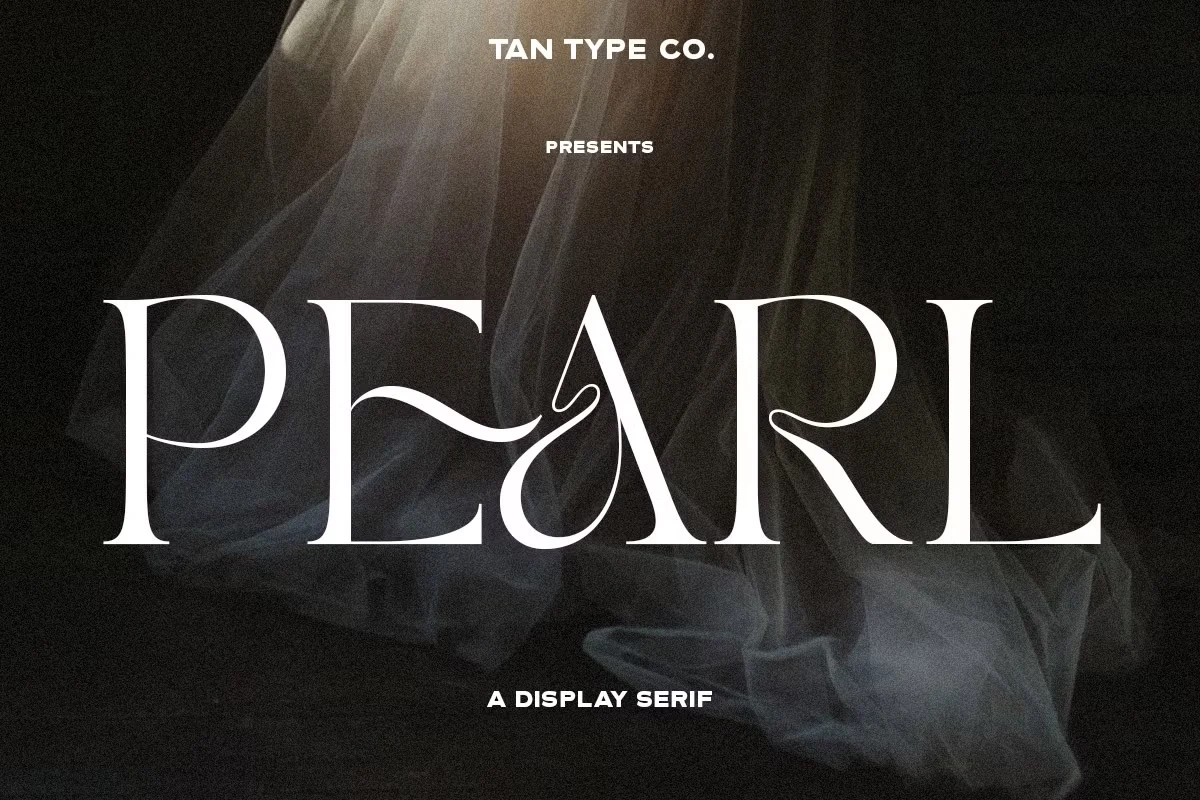
TAN PEARL is an elegant and playful serif font, beautifully crafted with graceful curves and timeless charm. Its classic yet modern aesthetic makes it perfect for a variety of design projects, from wedding invitations and logos to magazine layouts and stylish branding. With its versatility, TAN PEARL effortlessly enhances your creative workflow, making every design unique and naturally appealing. Whether you’re working on a vintage cookbook illustration or creating a boutique’s branding, this font adds a touch of sophistication and charm, elevating your visuals with a refined, high-class feel.
More than just a font, TAN PEARL is a tool for boundless creativity. It encourages designers, artists, and visionaries to push their creative limits and innovate with every project. Whether you’re an experienced professional breaking new artistic ground or a student exploring the beauty of typography, TAN PEARL serves as an endless source of inspiration. It brings ideas to life and transforms ordinary designs into captivating works of art, making every creative journey exciting and meaningful.
Tan Pearl Font